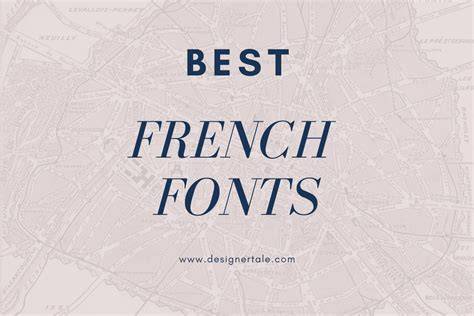
Discovering The Aesthetic Beauty Of French Fonts
When it comes to creating a beautiful and unique design, there is nothing more important than the font you choose. As they say, the font makes the design, and this is especially true when it comes to French fonts. By choosing the right font, you can give your design the perfect touch of elegance, style, and sophistication. With so many different options to choose from, it can be hard to know where to start. In this article, we'll be taking a look at the aesthetic beauty of French fonts, so you can make an informed decision when it comes to selecting the perfect font for your project.
What Makes French Fonts Special?
French fonts are unique in that they are particularly graceful and often feature an ornate, decorative touch. They typically have a lot of curves and flourishes, giving them a very graceful appearance. The lines are often thin and elegant, and the curves are smooth and flowing. This makes them perfect for projects that require a touch of elegance, such as wedding invitations, greeting cards, and other formal documents. French fonts often feature a mixture of uppercase and lowercase letters as well, giving them a more ornate feel.
Types of French Fonts
When it comes to French fonts, there are a few different styles that you can choose from. The most popular type is the serif font, which is a type of font that has small lines at the end of each character. This gives the font a decorative, old-fashioned feel. Other popular French font styles include script fonts, which feature a more handwritten look, and sans-serif fonts, which don't have any lines at the ends of characters. You can also find fonts that are a combination of different styles, giving you a wide variety of options to choose from.
Finding the Right French Font for Your Project
When it comes to finding the perfect font for your project, it's important to consider the overall look and feel that you're going for. Do you want a font that is formal and elegant, or something more fun and casual? Do you want a font that is easy to read, or one that stands out and makes a statement? These are all important questions to ask yourself when selecting a French font. Once you have a clear idea of what you're looking for, you can begin your search for the perfect font.
French fonts are a great way to bring a touch of elegance and sophistication to your design. With so many styles to choose from, you're sure to find the perfect font for your project. Whether you're looking for something formal and ornate or something more playful and fun, French fonts are sure to make your design stand out from the crowd. So, why not give them a try and see what you can create?